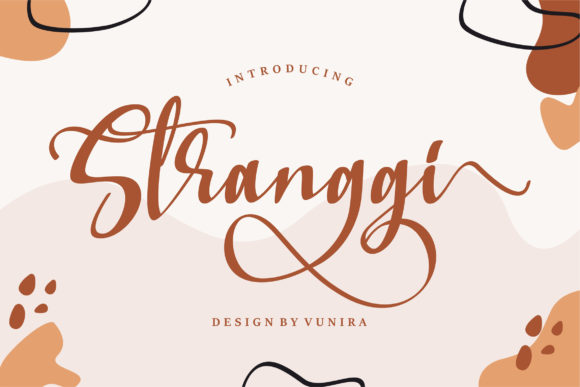
Introducing Stranggi: A Script Font That Embraces Fluidity and Grace.
In a world where uniqueness and authenticity are sought after, Stranggi emerges as a breath of fresh air in the world of typography. This enchanting script font, meticulously crafted by the visionary minds at Vunira, carries an essence of carefree elegance that's sure to captivate your audience.
With its relaxed brushed strokes, Stranggi dances along the baseline, exuding a sense of effortless grace. Its playful characters, each possessing a distinct personality, create a captivating visual rhythm that draws the eye and ignites the imagination.
Whether you're designing logos that demand attention, crafting wedding invitations that ooze sophistication, or creating headings that leave a lasting impression, Stranggi rises to the occasion with its unmatched versatility. Its adaptability extends to t-shirts, letterheads, signage, labels, news, posters, badges, and a myriad of other applications, seamlessly blending into your creative vision.
With Stranggi as your creative companion, you'll discover a new level of expression. Its ability to evoke emotions, convey messages, and establish a connection with your audience is truly remarkable. Let Stranggi be your artistic muse as you embark on a journey of creative storytelling, leaving an indelible mark on the hearts and minds of those who encounter your work.
Embrace the fluidity, the grace, and the sheer beauty of Stranggi. Dive into a world of creative possibilities and let your imagination soar. The world of typography awaits, ready to be transformed by your vision and the magic of Stranggi.